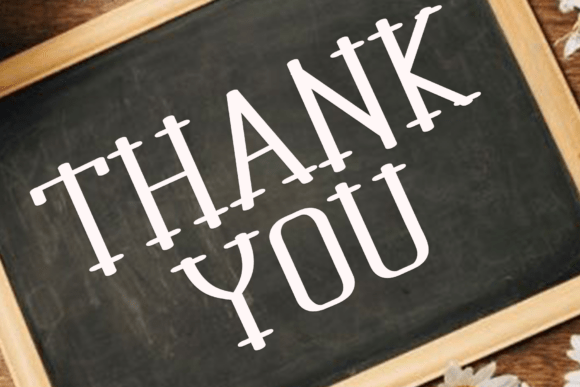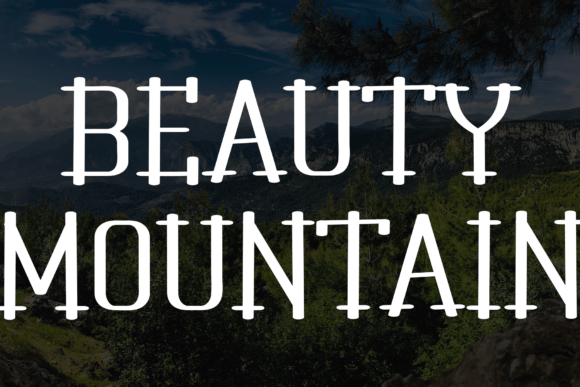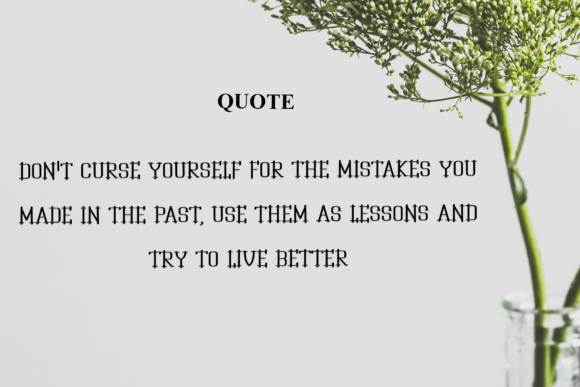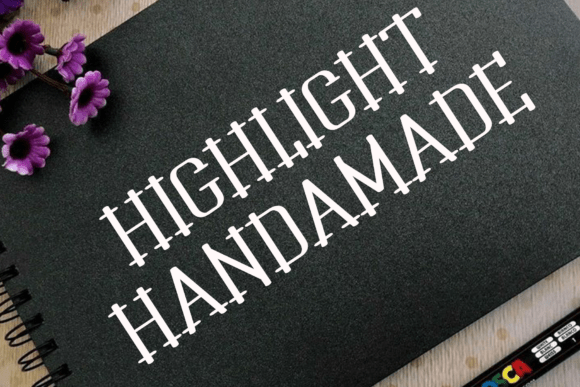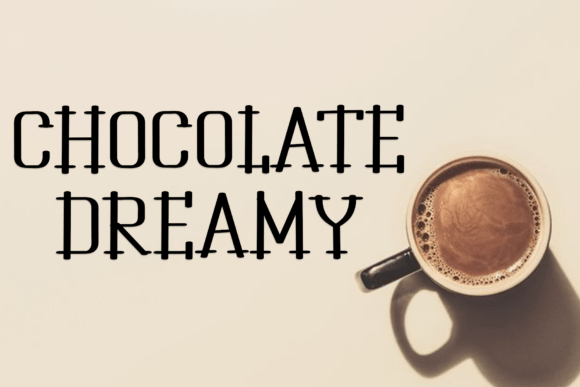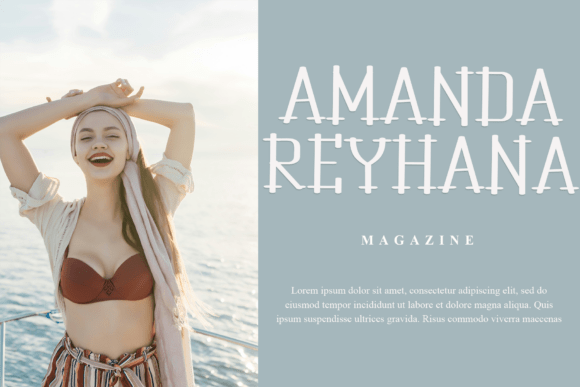
Baby Boy Font: A Whimsical Typeface for Childhood Wonder
The Baby Boy font is a delightful, whimsical, and playful sans-serif display font designed to capture the joy and curiosity of childhood. Its charming “button” or “pin” terminals on the ends of strokes give it a hand-built, toy-like aesthetic that is both nostalgic and modern. This typeface is specifically crafted for the youth market, making it a favorite for children’s clothing brands, nursery wall art, and birthday party invitations.
A Font that Prioritizes Fun and Legibility
The Baby Boy font prioritizes fun without sacrificing clean, professional lines. Its sturdy, open letterforms ensure high legibility for young readers, while its unique decorative details add a layer of creative “play.” This makes it an exceptional choice for educational apps, baby shower stationery, and toy packaging. Whether you’re designing a logo for a boutique children’s shop or a custom title for a nursery, the Baby Boy font is sure to delight.
Design Inspiration and Usage
The Baby Boy font draws inspiration from the whimsy and wonder of childhood. Its design is perfect for:
- Children’s clothing brands: Add a touch of playfulness to your brand’s typography with the Baby Boy font.
- Nursery wall art: Create custom wall art for nurseries with the Baby Boy font’s charming and whimsical design.
- Birthday party invitations: Make your party invitations stand out with the Baby Boy font’s unique and playful style.
- Educational apps: Use the Baby Boy font to create engaging and interactive educational content for young learners.
- Baby shower stationery: Add a touch of sweetness to your baby shower stationery with the Baby Boy font.
- Toy packaging: Make your toy packaging stand out with the Baby Boy font’s fun and playful design.
Enhancing the Baby Boy Font
To take your design to the next level, enhance the Baby Boy font by:
- Using a palette of soft primary colors: Pair the Baby Boy font with a palette of soft primary colors to create a cohesive and playful look.
- Pairing it with cute character illustrations: Combine the Baby Boy font with cute character illustrations to add an extra layer of whimsy and fun.
Why Choose the Baby Boy Font?
The Baby Boy font is a unique and versatile typeface that offers a range of benefits, including:
- High legibility: The Baby Boy font’s sturdy, open letterforms ensure high legibility for young readers.
- Playful design: The font’s charming “button” or “pin” terminals on the ends of strokes give it a hand-built, toy-like aesthetic that is both nostalgic and modern.
- Clean and professional lines: The Baby Boy font prioritizes fun without sacrificing clean, professional lines.
- Versatility: The font is suitable for a range of design applications, from children’s clothing brands to educational apps.
The Baby Boy font is a delightful and whimsical typeface that is perfect for designers and crafters looking to add a touch of childhood wonder to their designs. With its charming design, high legibility, and versatility, the Baby Boy font is sure to become a favorite for a range of design applications. Whether you’re designing a logo, creating custom stationery, or developing educational content, the Baby Boy font is an exceptional choice.